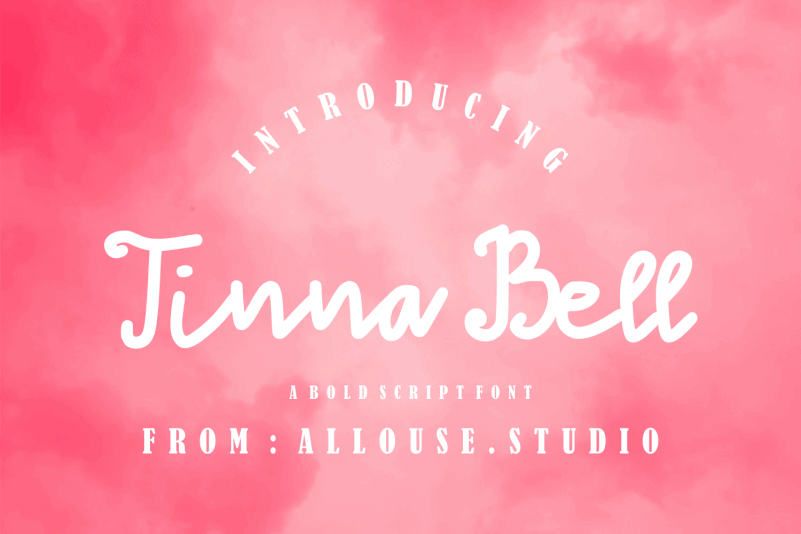
Tinna Bell Handwritten Font
Proudly Present, Tinna Bell Handwritten Font.
Tinna Bell is a Modern Monoline Handwritten Font.
Tinna Bell is perfect for product packaging, branding project, megazine, social media, wedding, or just used to express words above the background.